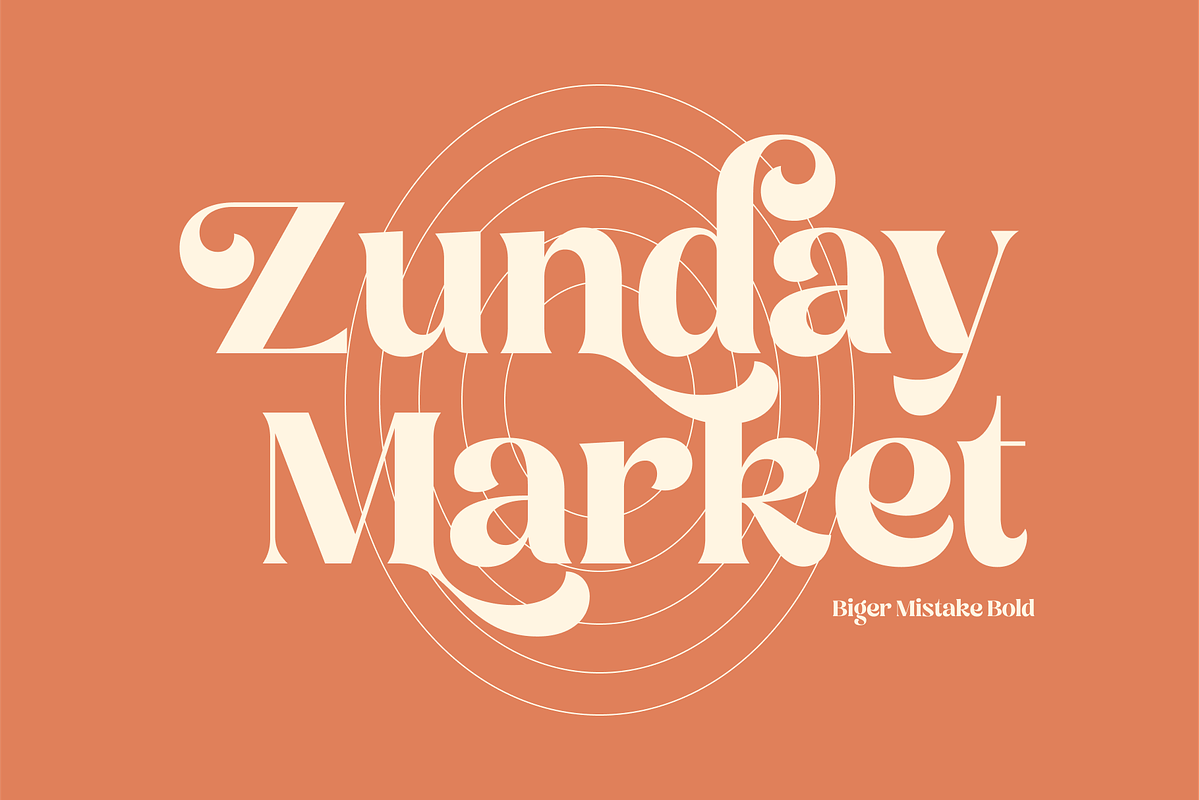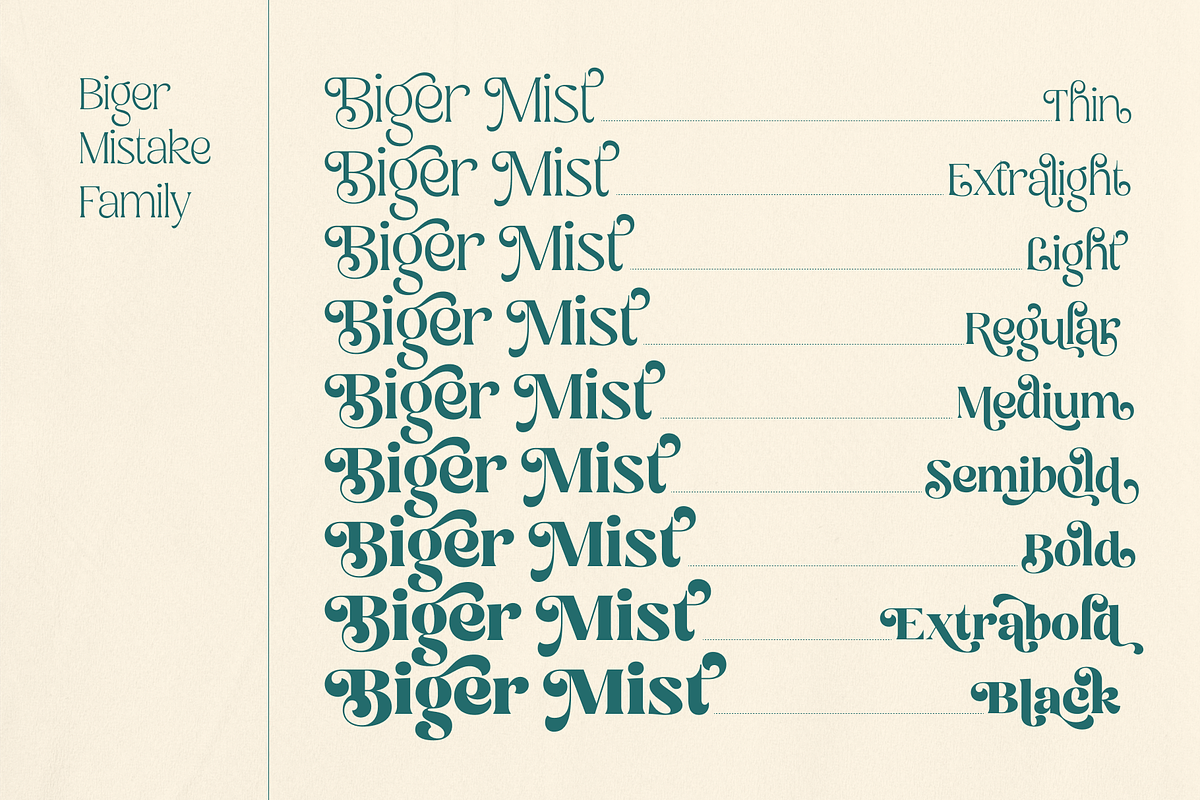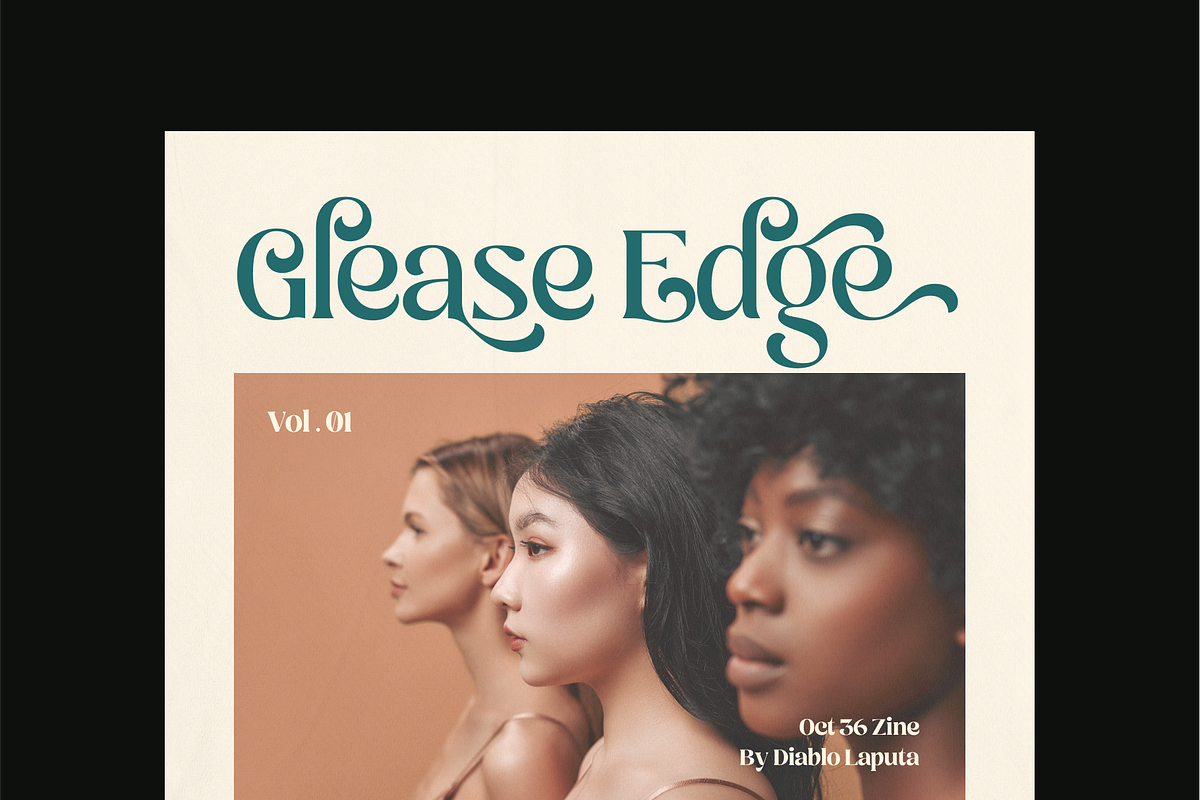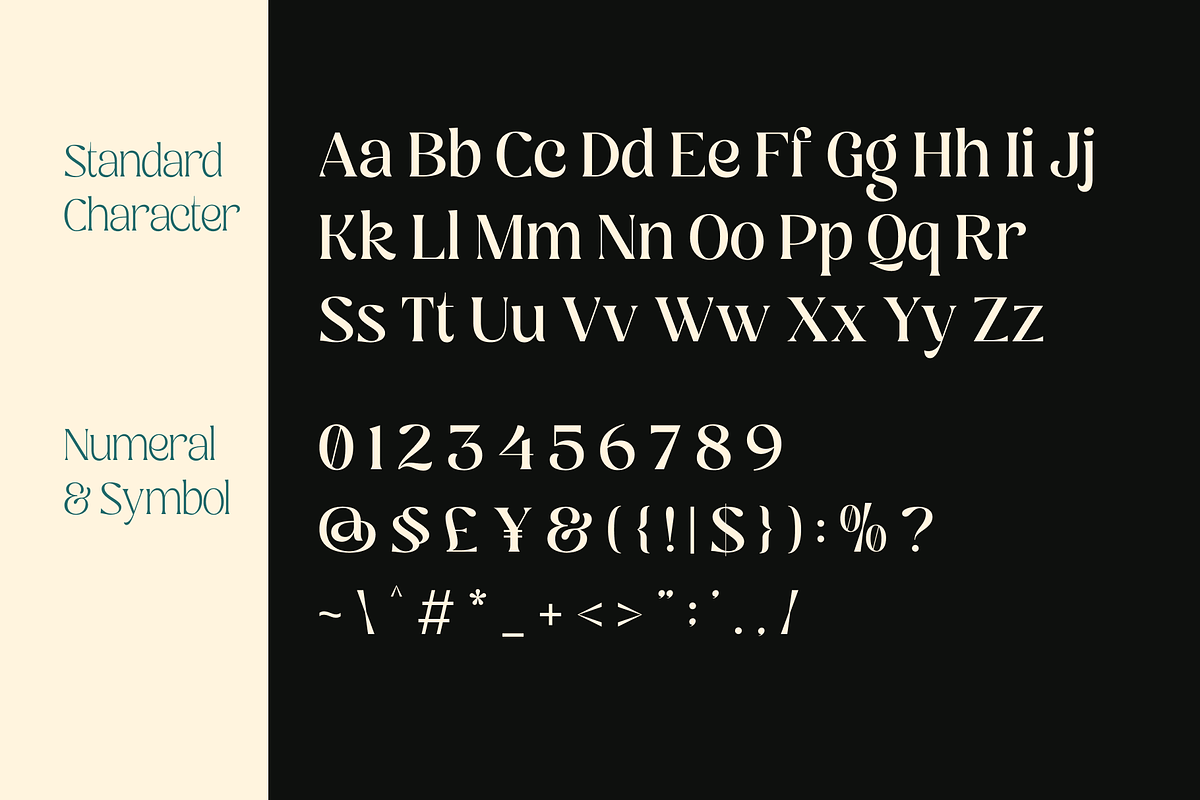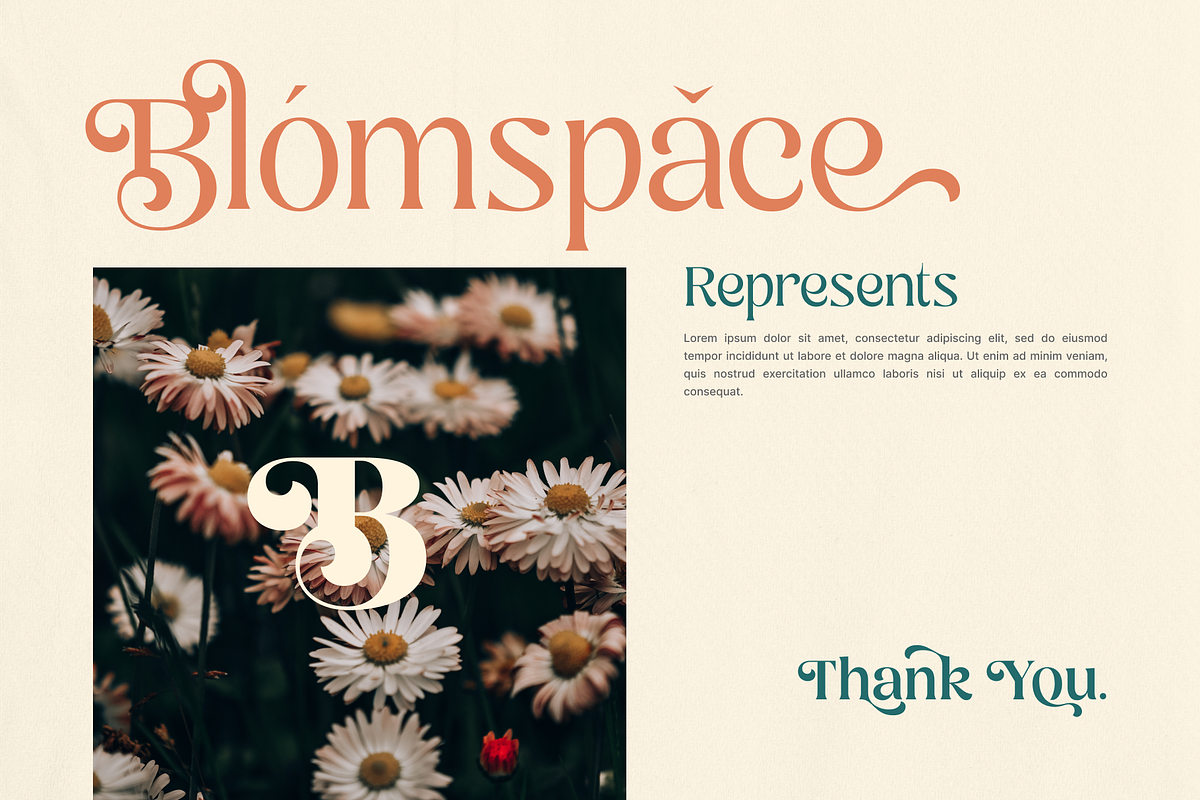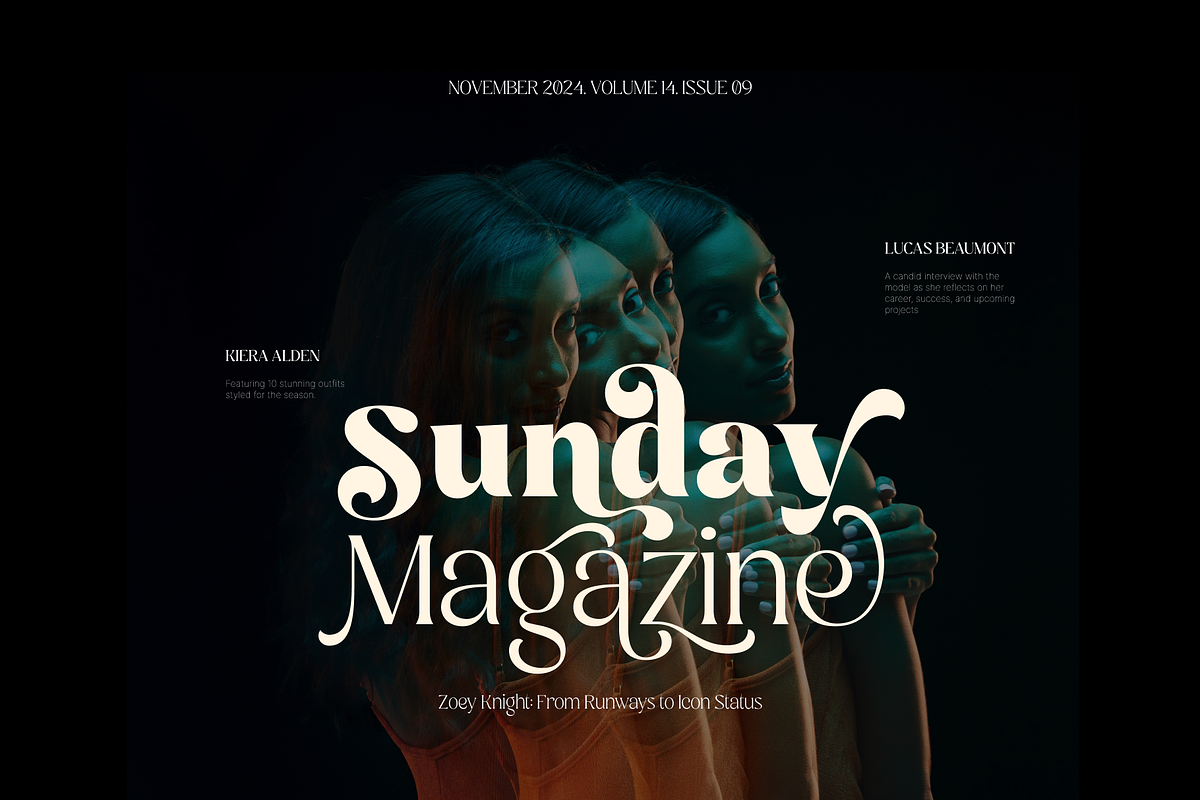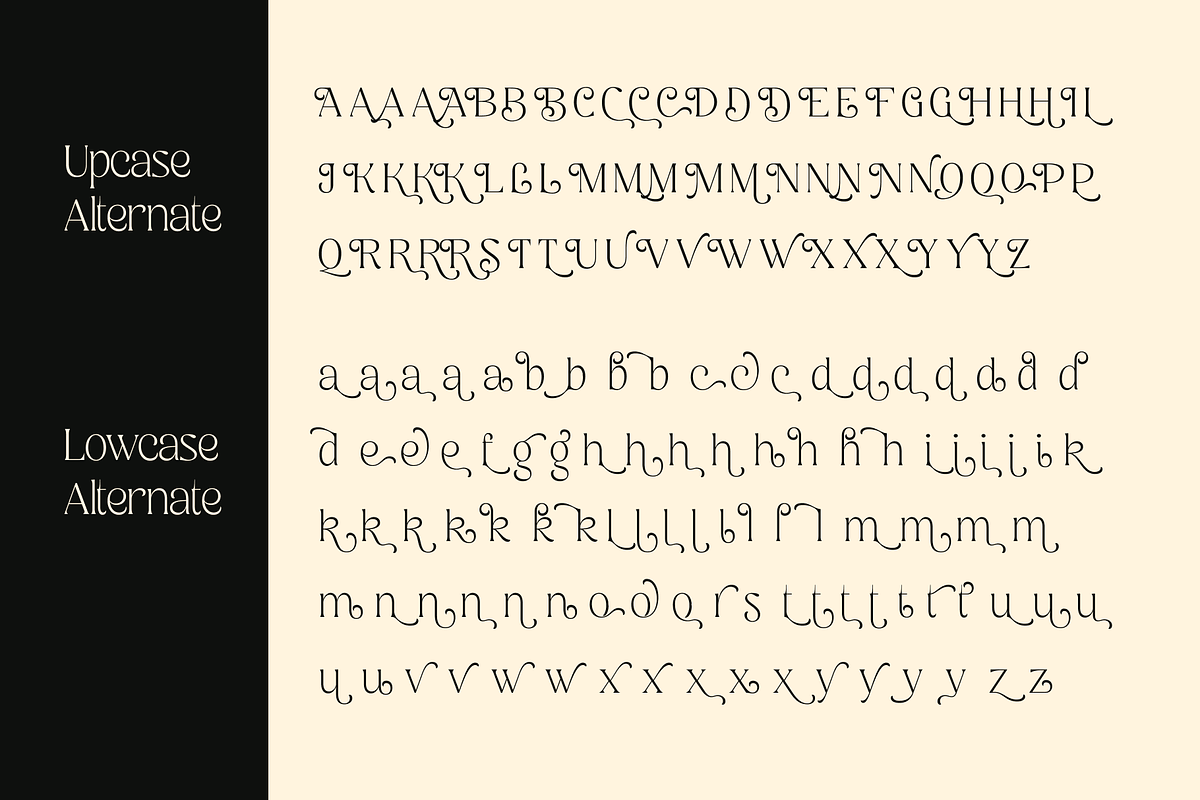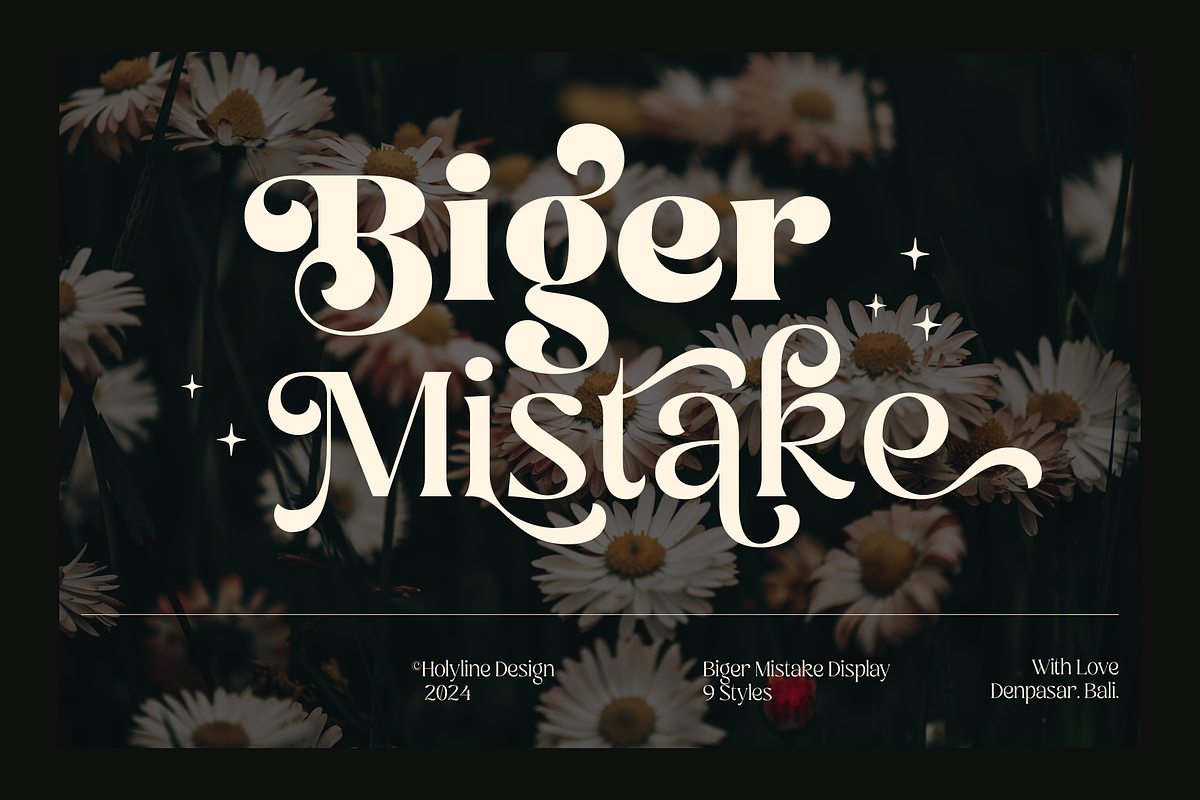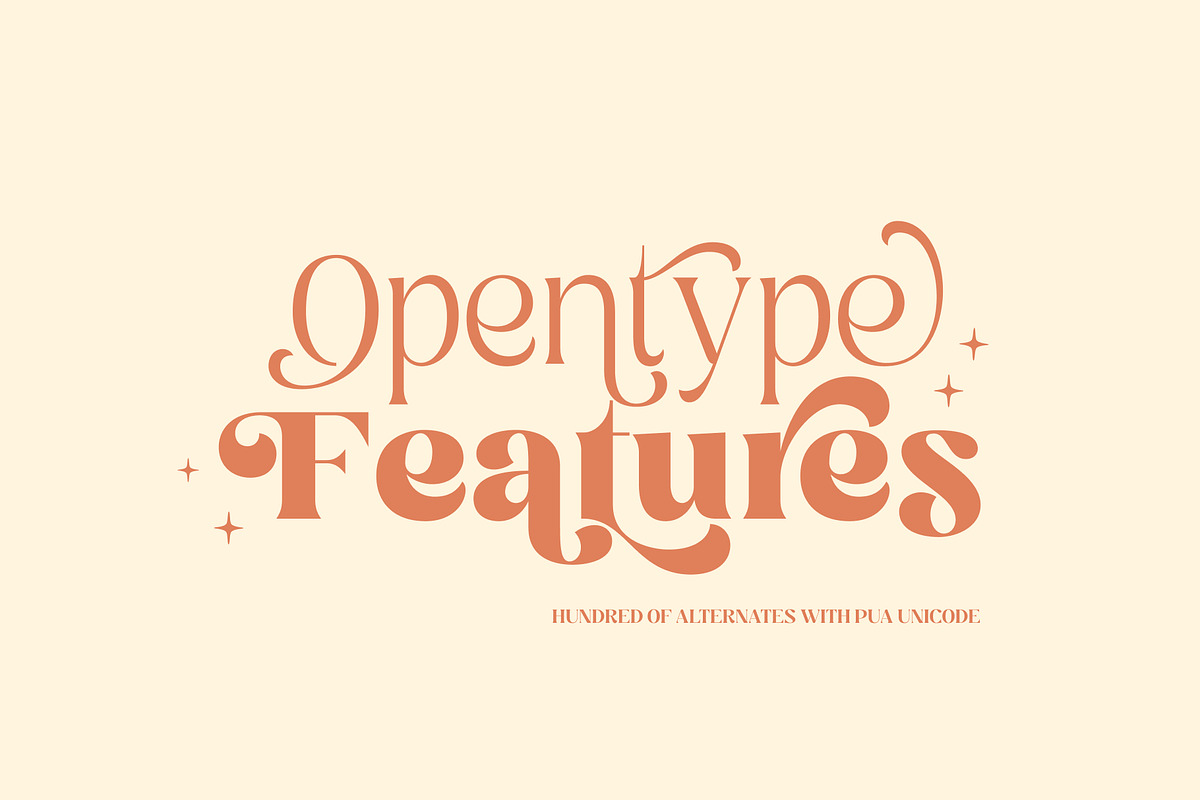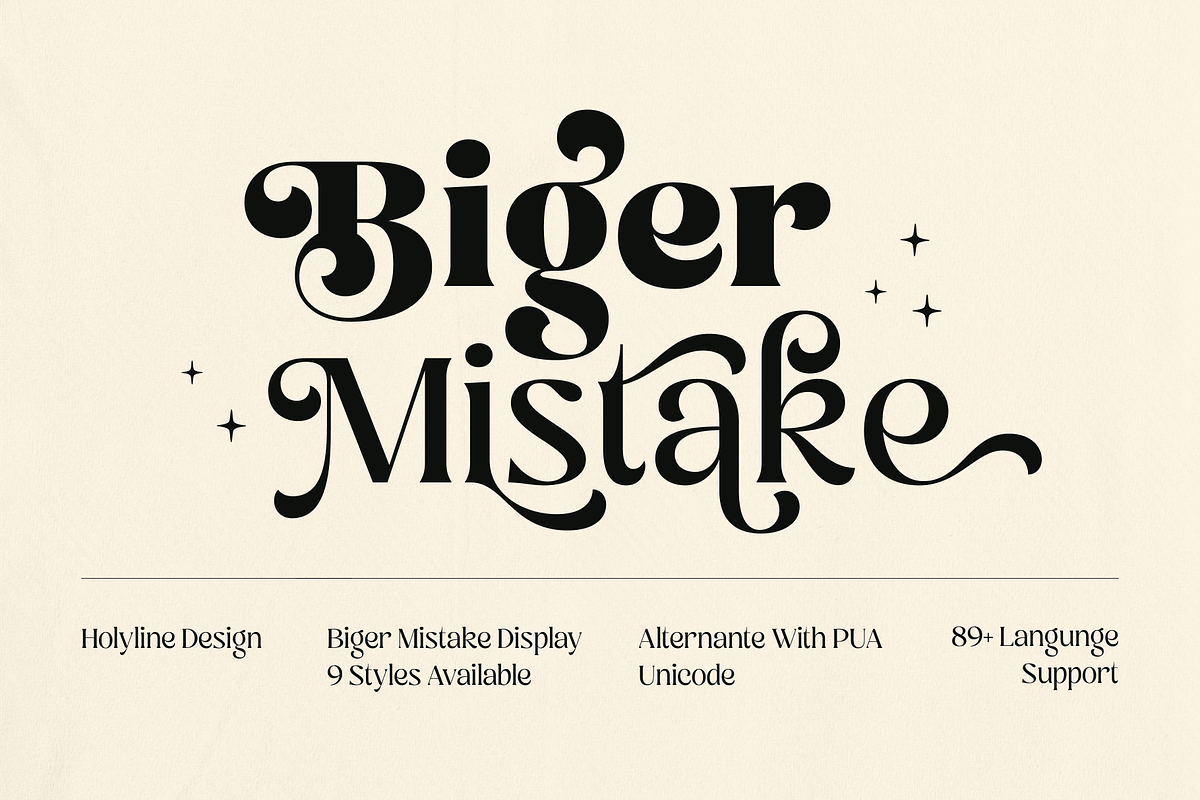
Biger Mistake - Playful Family
Biger Mistake is a playful serif display font inspired by the vibrant charm of retro fashion, iconic magazines, and timeless designs from the ’60s to the ’90s. It combines bold character with elegance, offering a unique style that makes every design stand out. With 9 weights ranging from delicate thin to commanding black, Biger Mistake provides exceptional versatility for headlines, logos, and editorial designs. The font includes a wide variety of alternates, allowing effortless combinations to create stunning curves and intricate shapes in seconds. Perfect for capturing the essence of vintage aesthetics while maintaining a modern edge, Biger Mistake is your go-to font for projects that demand both personality and sophistication.